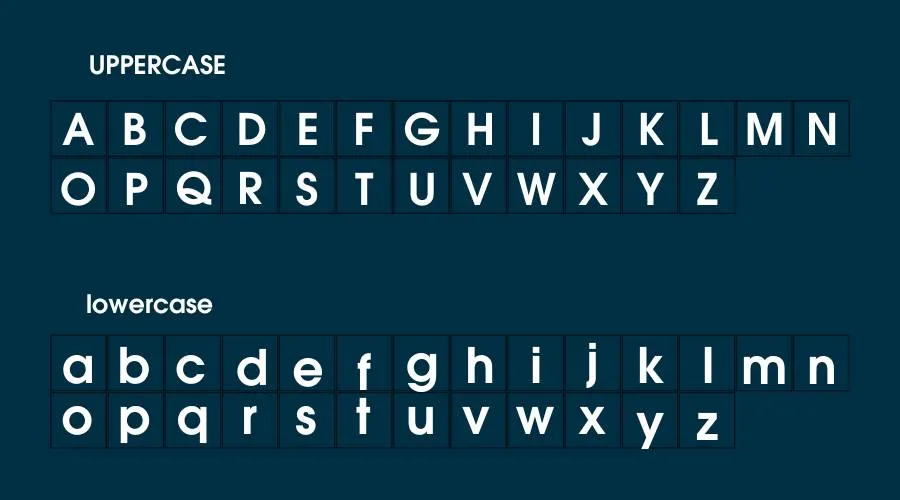
Itc Avant Garde Gothic Font
About Itc Avant Garde Gothic Font
This geometric sans-serif typeface Itc Avant Garde Gothic Font is driven by a well-known magazine called Avant Garde. It is a typeface based on logos.
Herb Lubalin came up with the idea for the logo, and he then collaborated with Tom Carnase, a partner in Lubalin's design studio, to create this typeface. This fully-fledged typeface works well with the euro sans font.
This is a bold gothic font that works well for many kinds of display applications. It is also known as the Monotype font foundry's logo, and you can find it in Adobe Fonts.
This font works well for various online book layout designs and art design applications. The typeface was available in a wide range of world languages. It offers amazing properties.